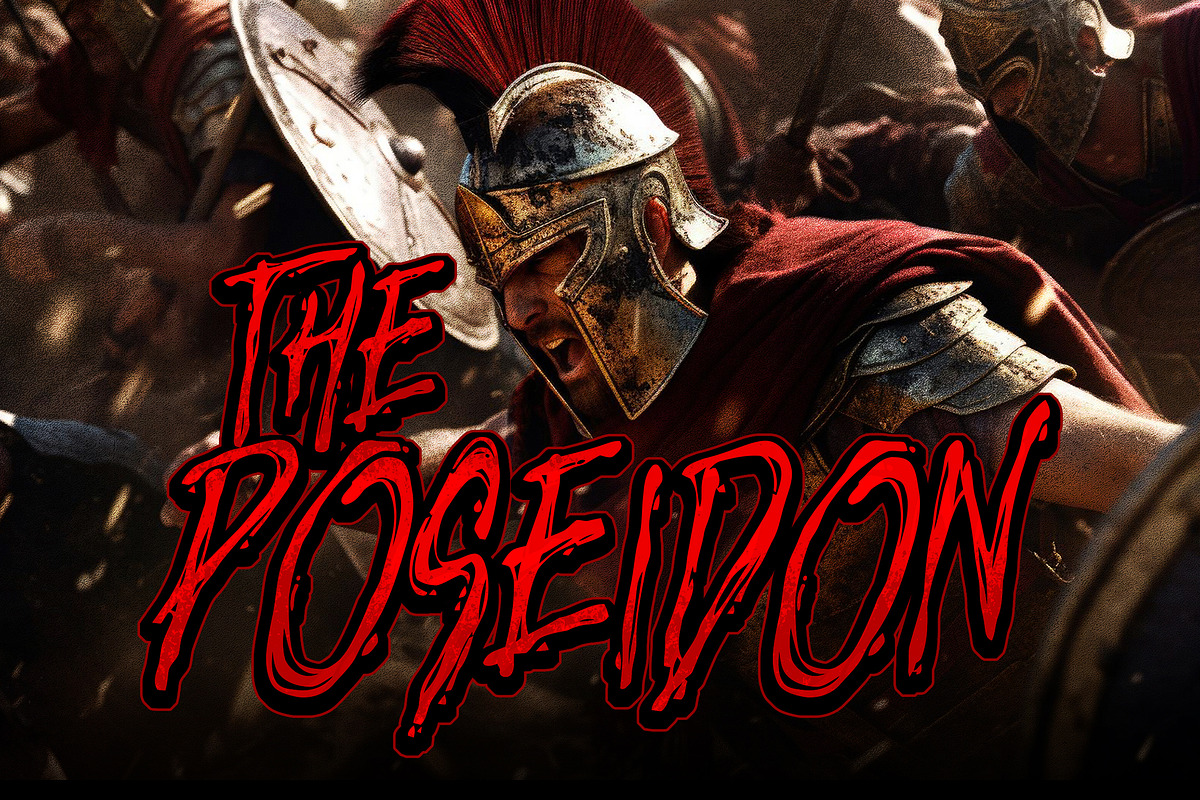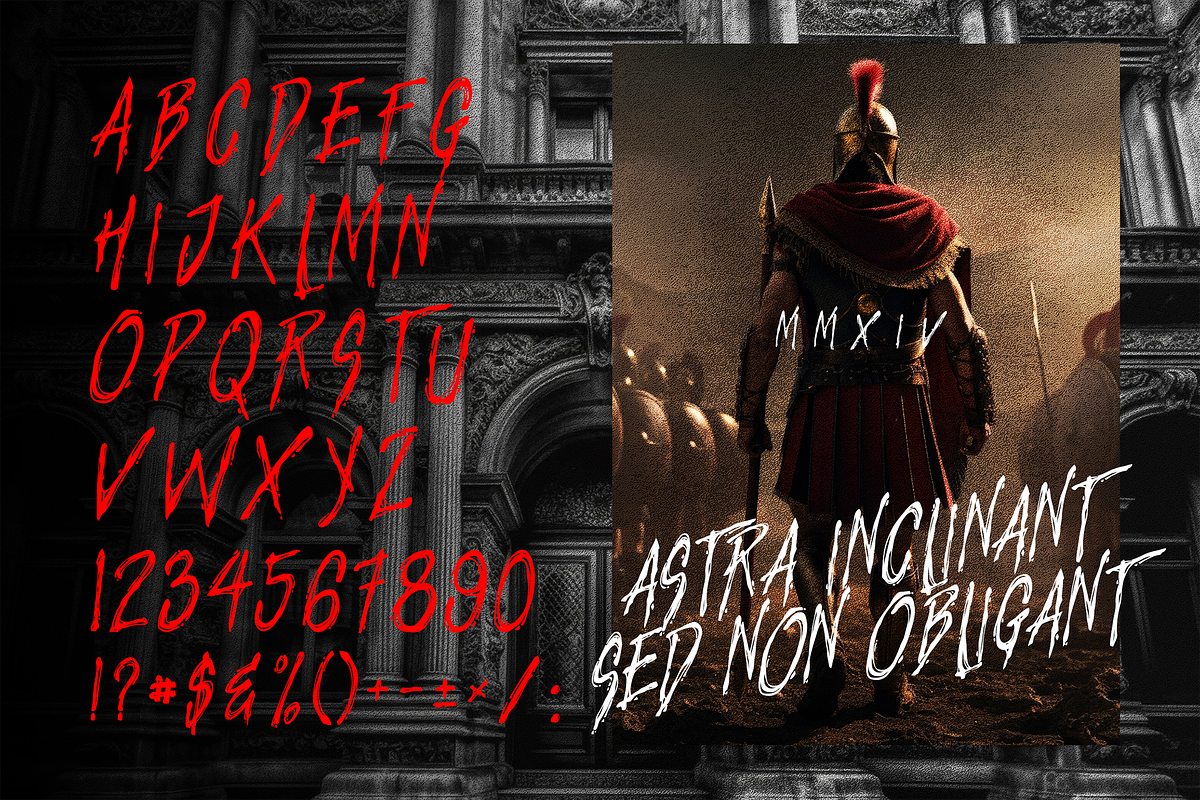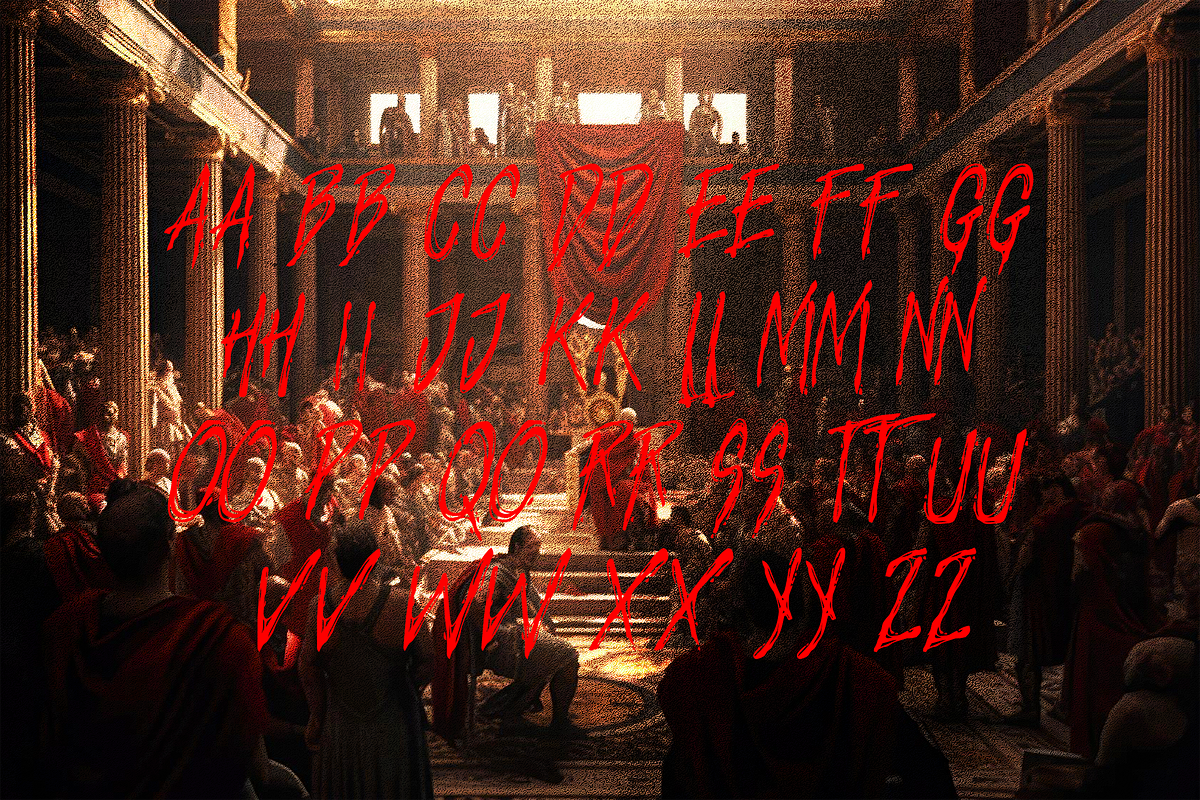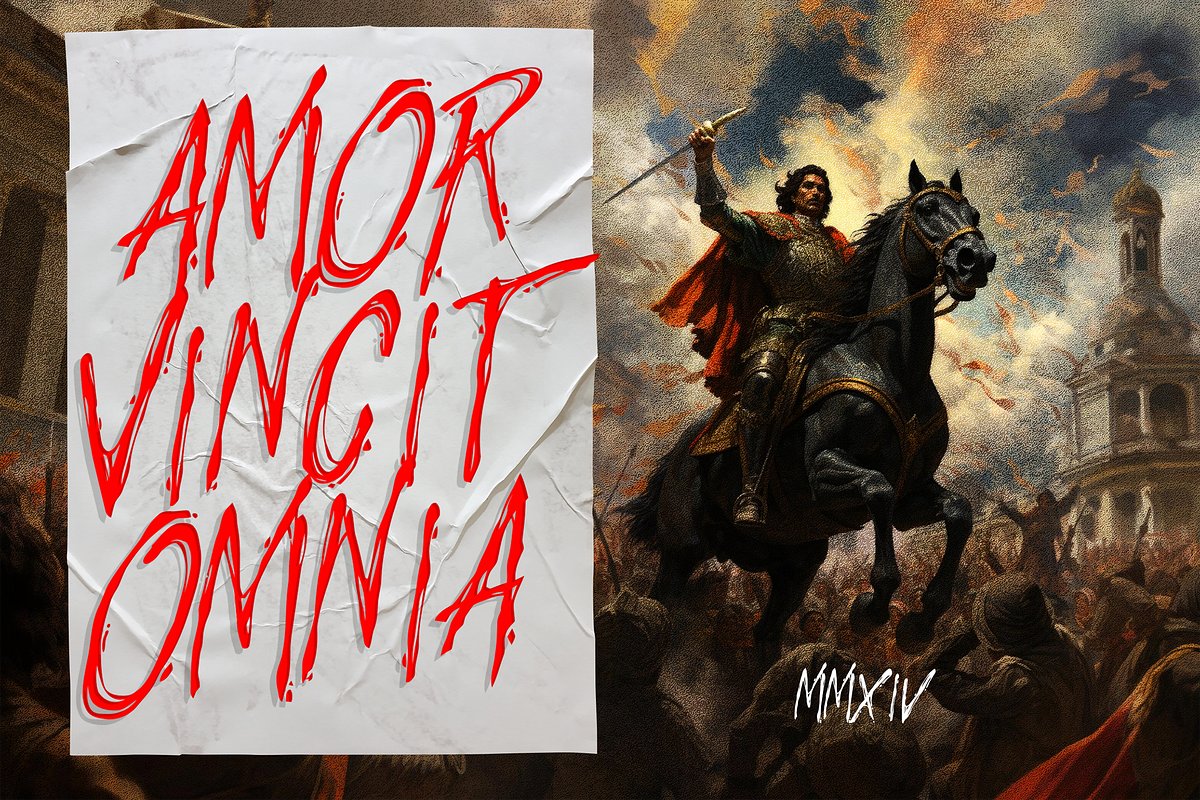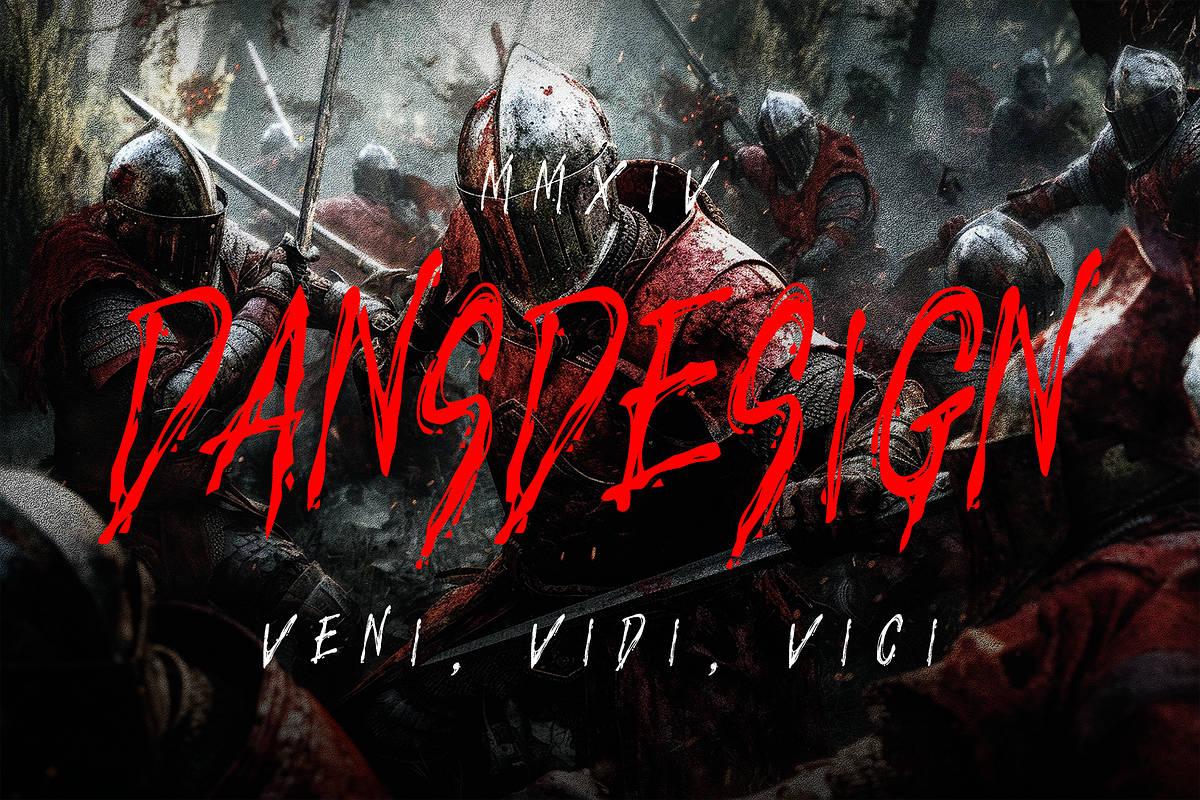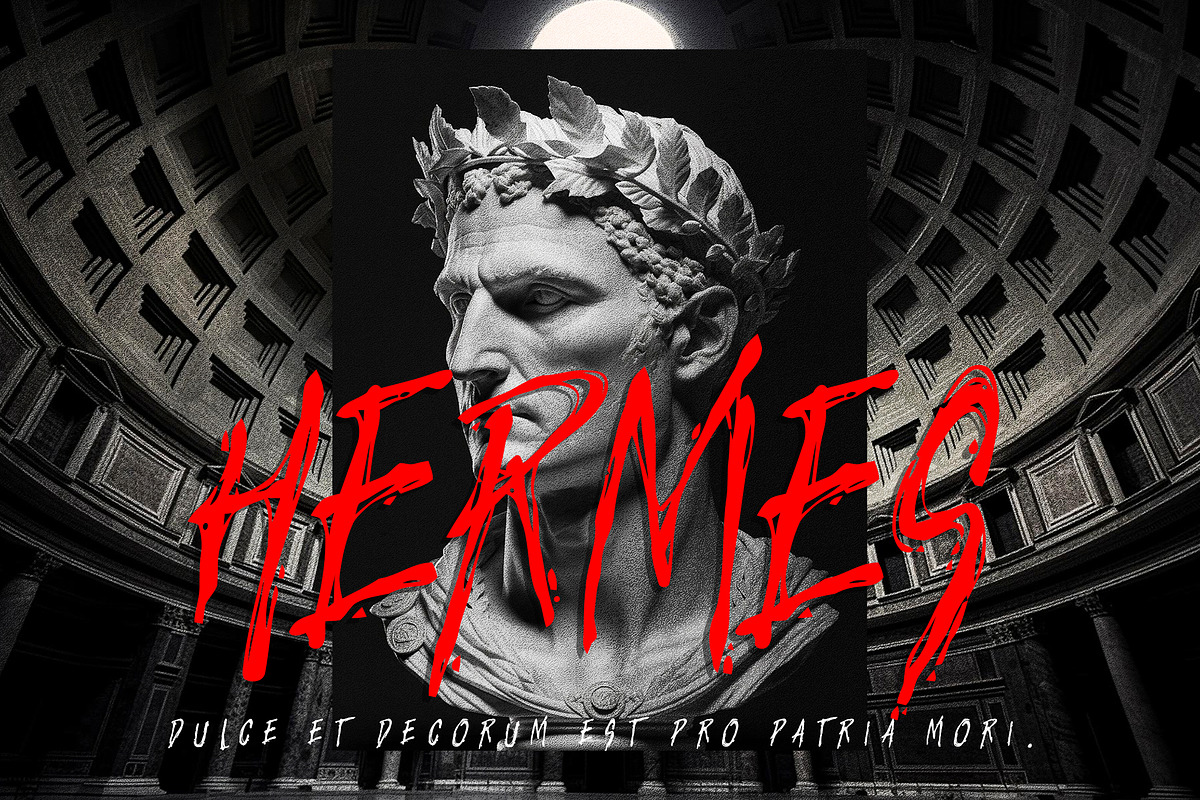
Dameter Metal Horror Display Font
Dameter Horror Display Font
Dameter Horror Display Fonta distinct, highly detailed, and chic Blackletter font. It would make a great choice for exquisite retro-urban designs, tattoo business branding, logos, vintage designs, movie, poster, apparel, illustration, and more.
Featured : Accents (Multilingual characters) PUA encoded Numerals and Punctuation (OpenType Standard)